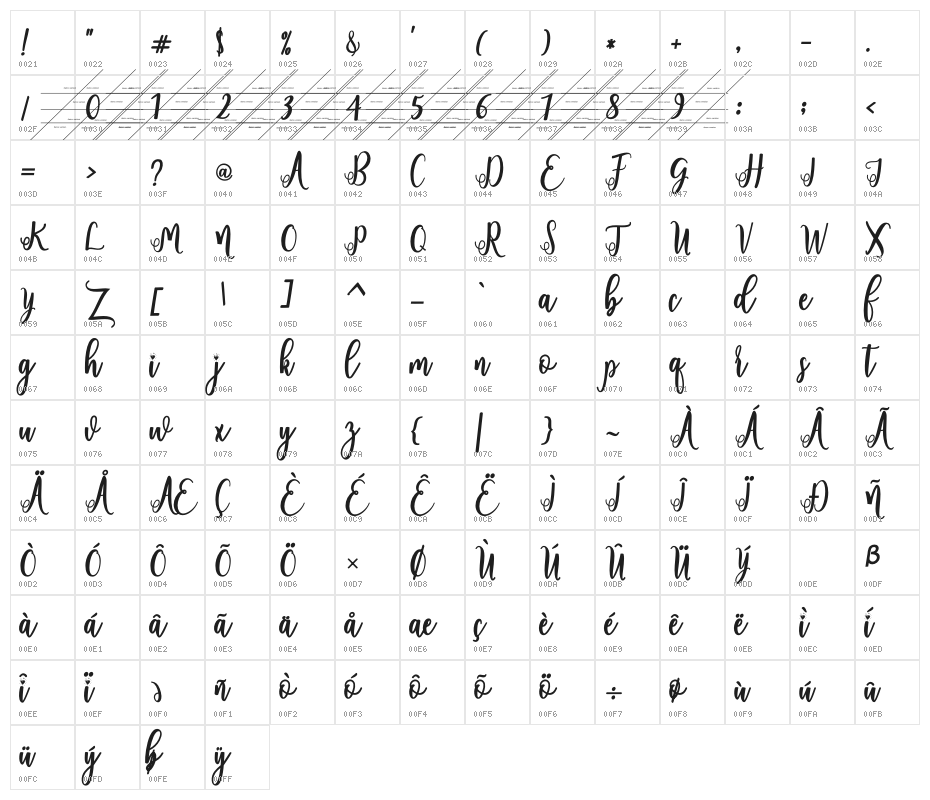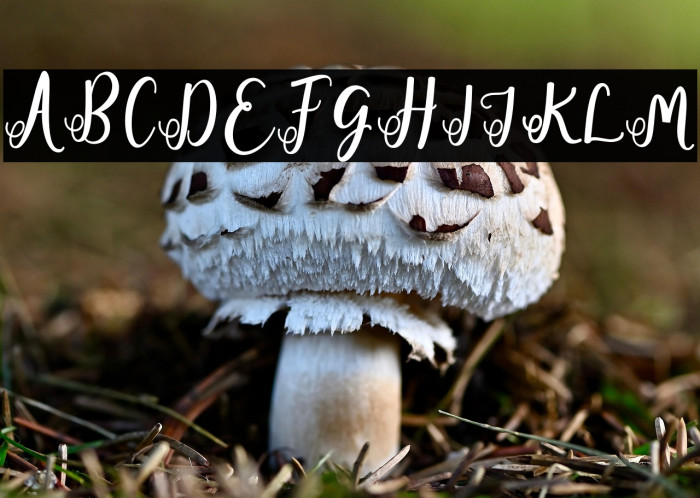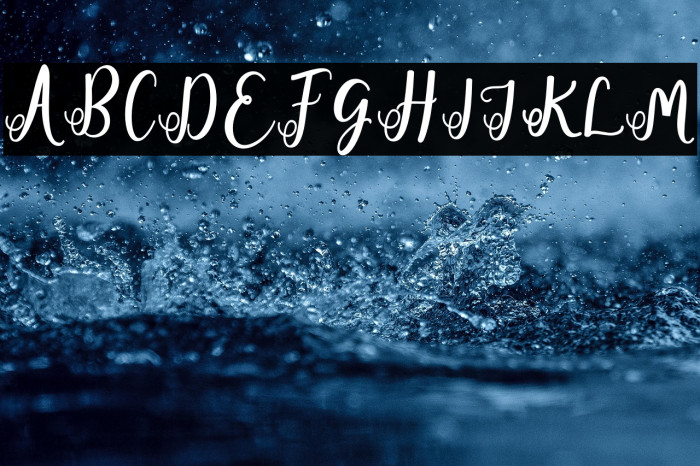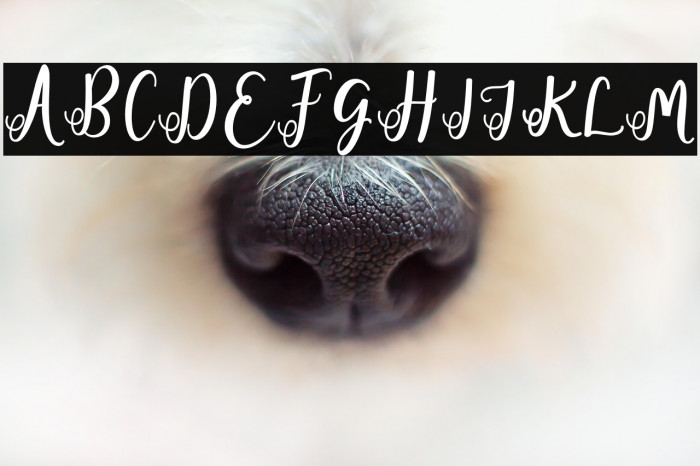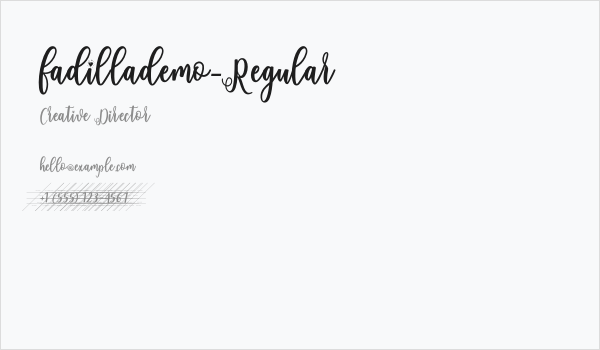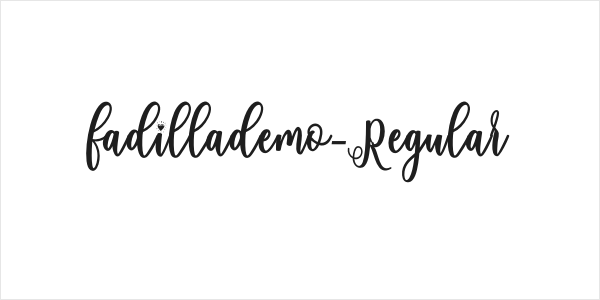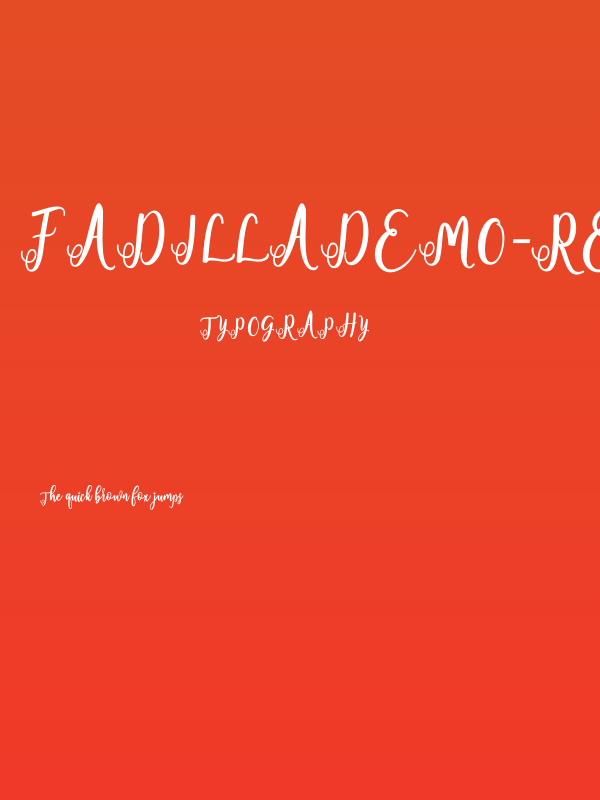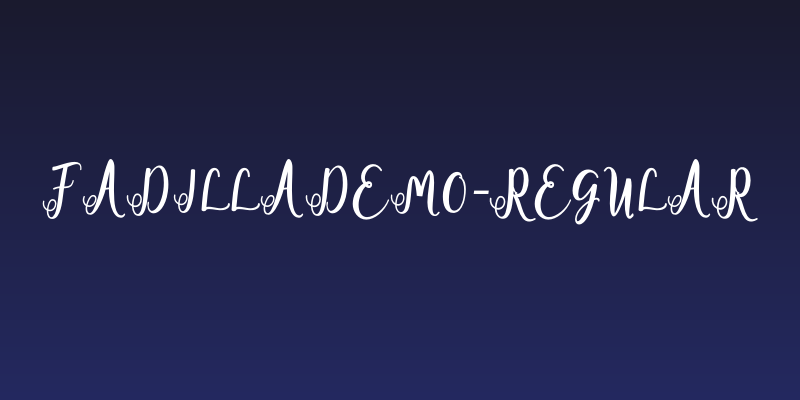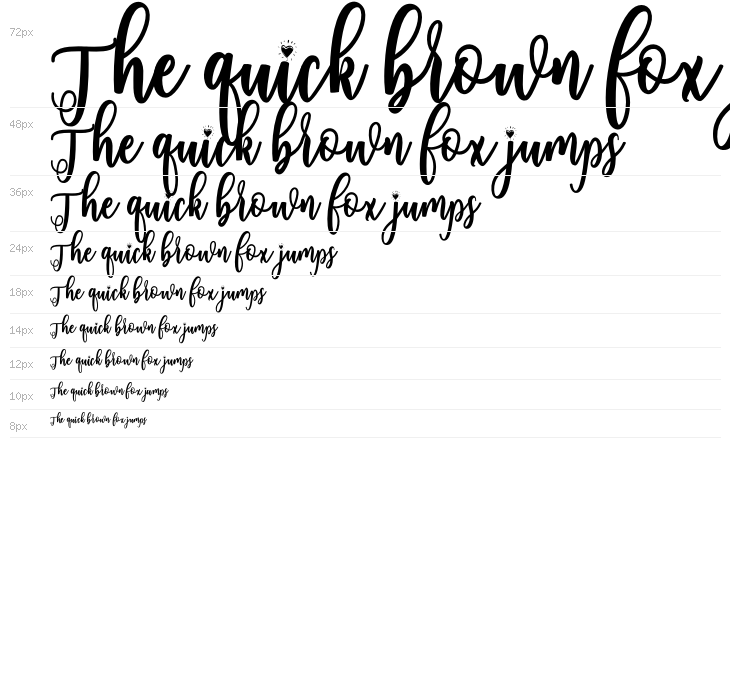
fadillademo-Regular Font
fadillademo-Regular Description
This font features a playful and whimsical script style with elegant swirls and loops that add a touch of charm and personality. The uppercase letters are adorned with decorative curls, while the lowercase letters maintain a smooth, flowing appearance. The numbers and special characters are consistent with the overall style, offering a cohesive look. The font's design is both artistic and legible, making it suitable for creative projects that require a touch of elegance and fun.
| Proposed Projects | Ideal for wedding invitations, greeting cards, branding, and decorative posters. |